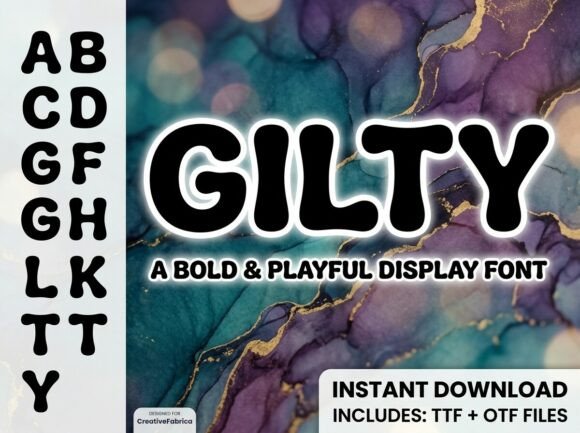
Introducing Gilty Font: The Ultimate Display Font for Creative Minds
Are you tired of using the same old fonts for your creative projects? Look no further! Gilty Font is a stunning decorative display font designed to grab attention and make your work stand out from the crowd. With its unique artistic elements and strong visual personality, this font is perfect for creators who want to break away from the ordinary and add a touch of elegance to their designs.
What Makes Gilty Font Special?
Gilty Font is a versatile font that can be used for a variety of creative projects, including bold headlines, artistic logos, and creative packaging. Its professional and polished finish ensures that your work looks high-end and sophisticated, making it perfect for designers, crafters, and artists who want to make a statement.
One of the key features of Gilty Font is its unique design. Each letter is carefully crafted to be a work of art, making it perfect for high-impact headlines, logos, and decorative initials. The font’s strong visual personality is sure to grab attention and leave a lasting impression on your audience.
⚠️ IMPORTANT NOTE BEFORE PURCHASE: Gilty Font is an ALL-CAPS (Uppercase Only) display typeface. It does not include lowercase letters. This means that it’s specifically designed for high-impact headlines, logos, and decorative initials where every letter is a work of art.
This unique design feature is what sets Gilty Font apart from other fonts. The all-caps design ensures that your text stands out and demands attention, making it perfect for creating striking headlines, logos, and titles.
Use Cases for Gilty Font
Gilty Font is perfect for a variety of creative projects, including:
- Headlines and Titles: Use Gilty Font to create striking headlines and titles that grab attention and make a statement.
- Logos and Branding: Create unique and memorable logos that showcase your brand’s personality and style.
- Packaging Design: Add a touch of elegance to your packaging design with Gilty Font’s professional and polished finish.
- Artistic Projects: Use Gilty Font to add a creative and artistic touch to your projects, such as posters, flyers, and brochures.
Why Choose Gilty Font?
There are many reasons why Gilty Font stands out from other fonts. Here are a few:
- Unique Design: Gilty Font’s unique artistic elements and strong visual personality make it a standout font that’s sure to grab attention.
- Versatility: Use Gilty Font for a variety of creative projects, from headlines and titles to logos and packaging design.
- Professional Finish: Gilty Font’s professional and polished finish ensures that your work looks high-end and sophisticated.